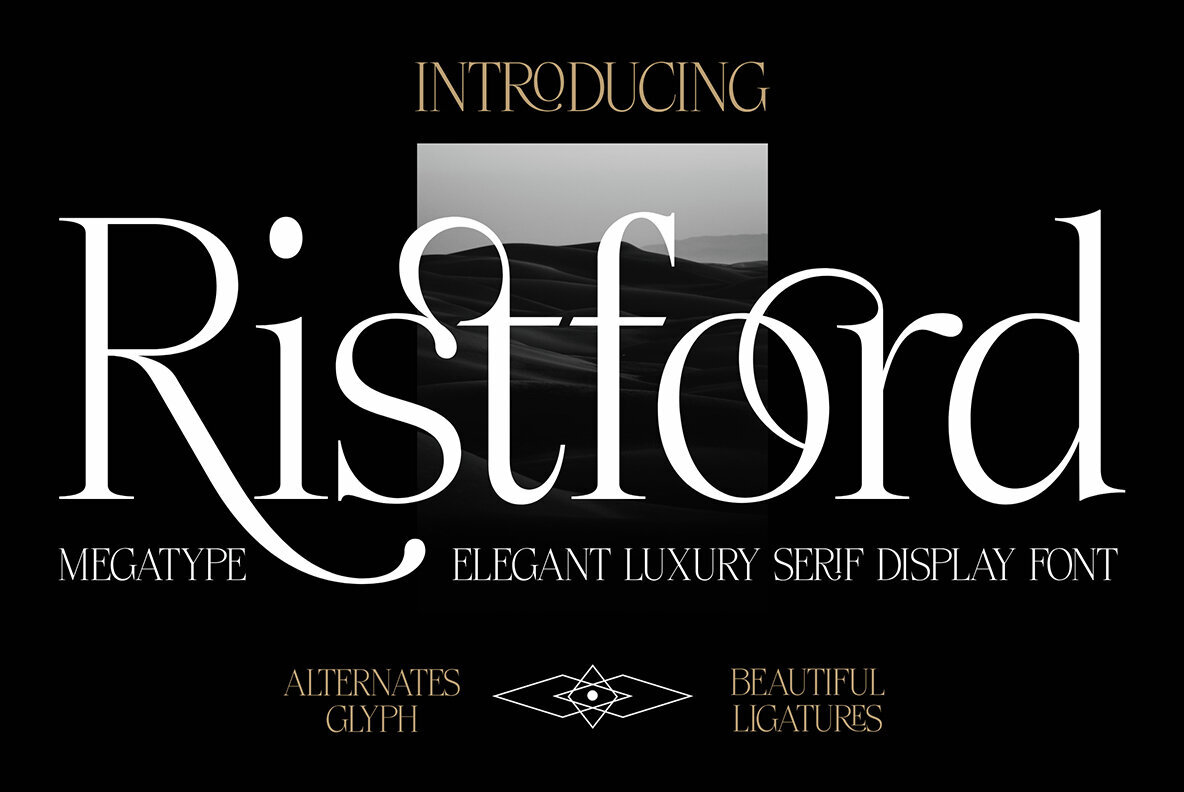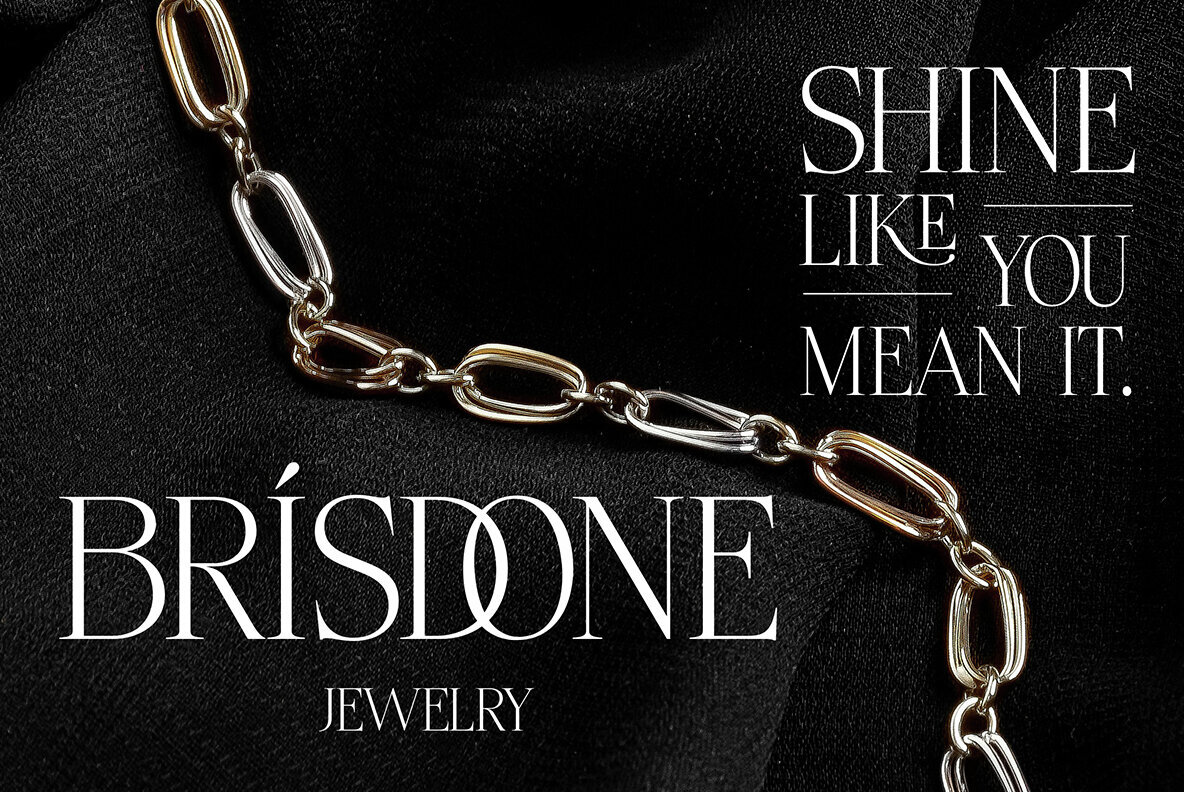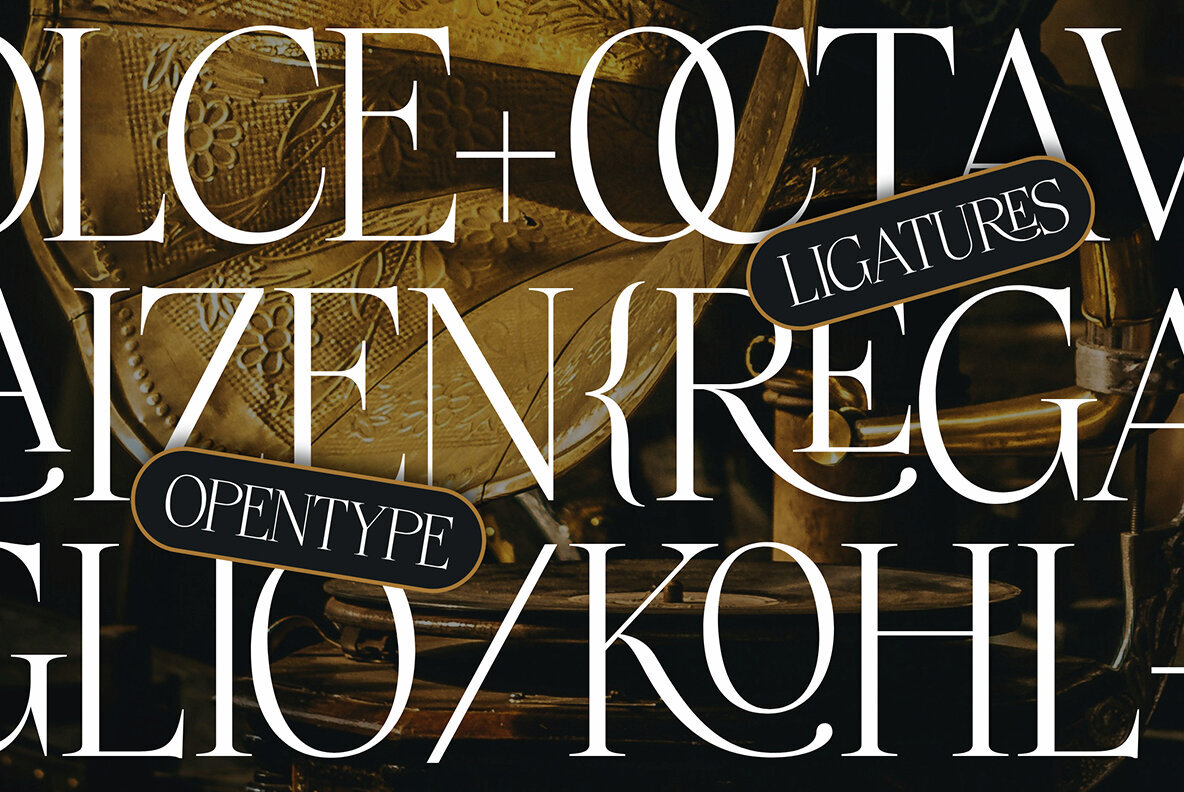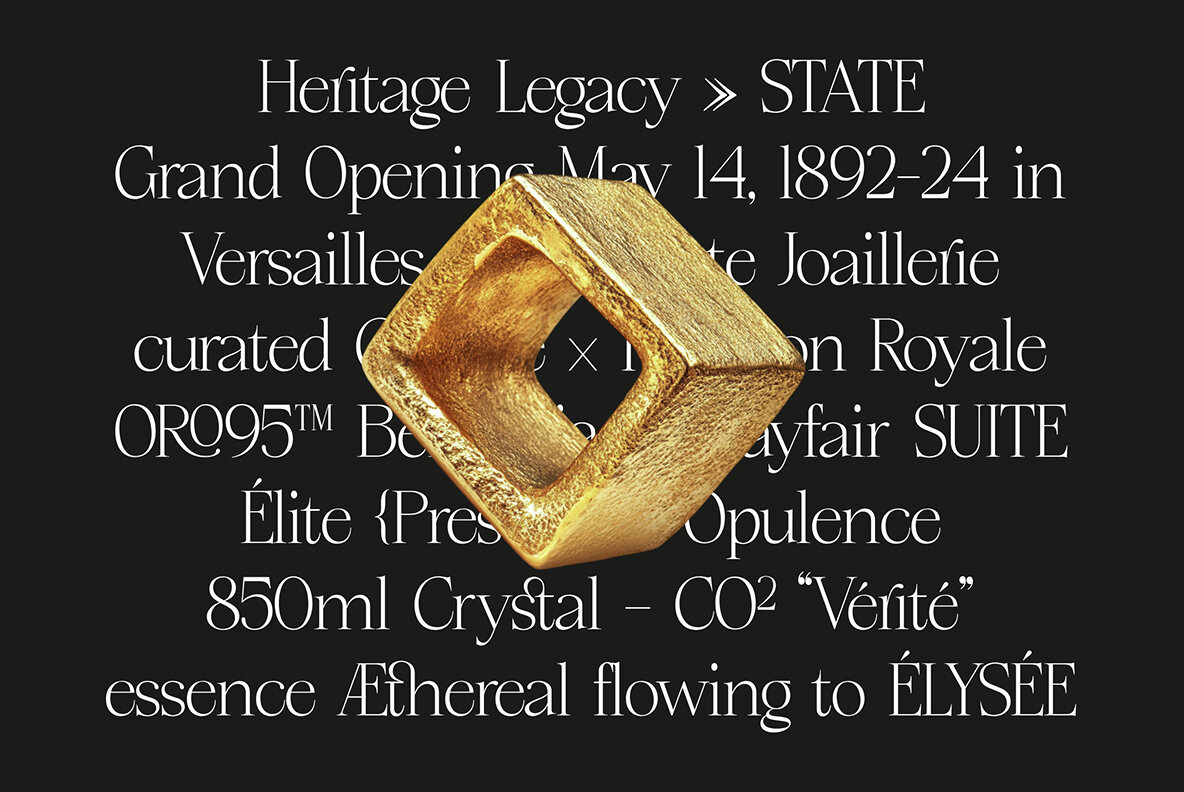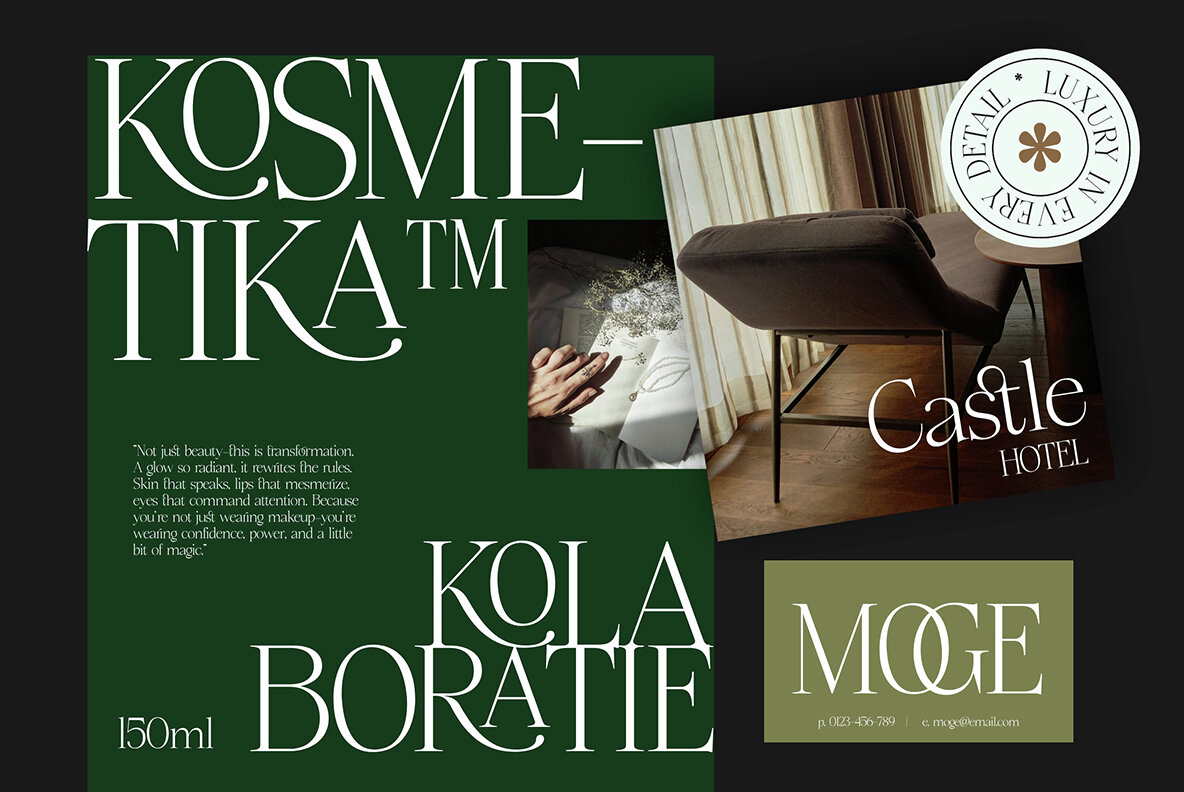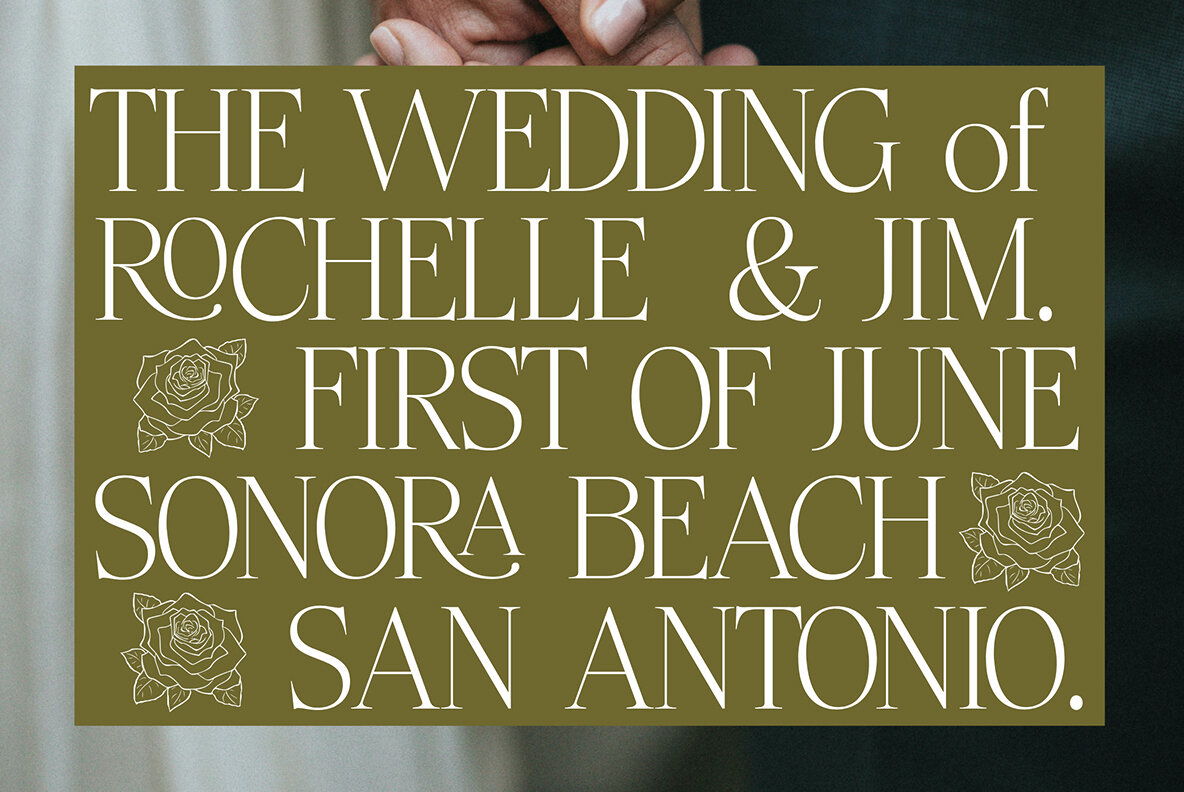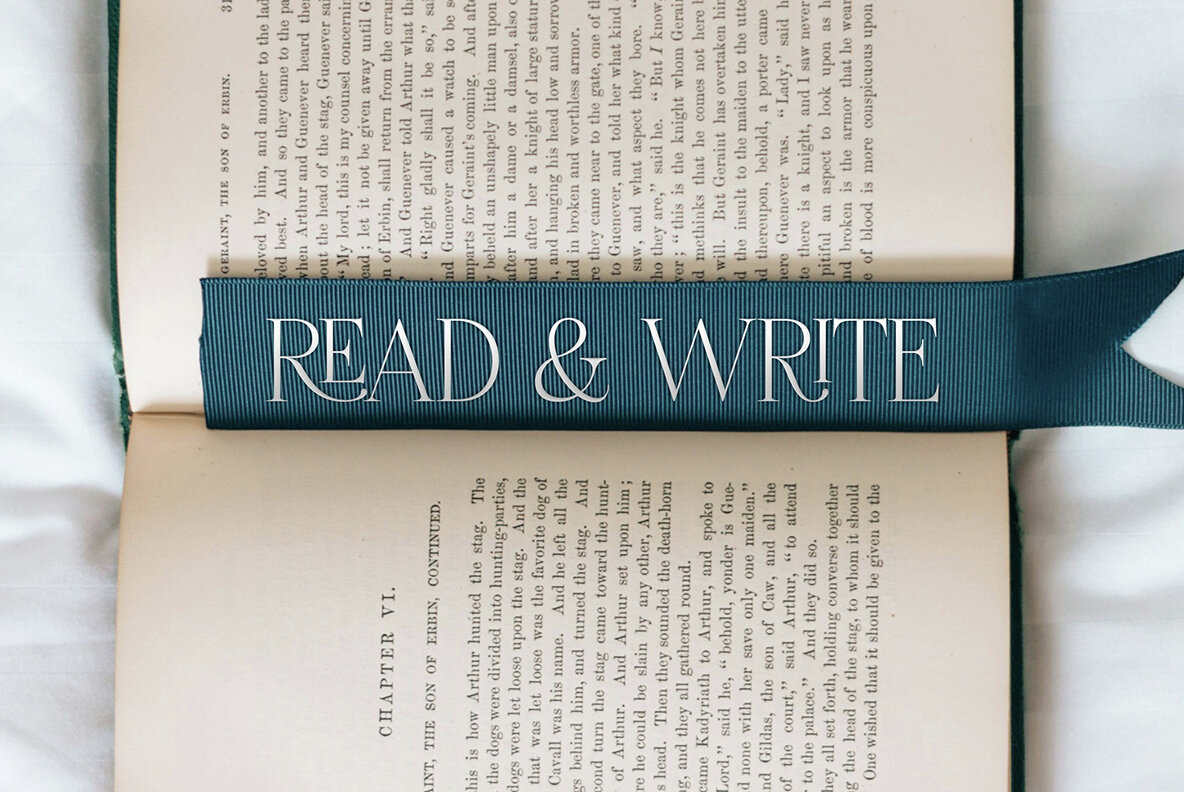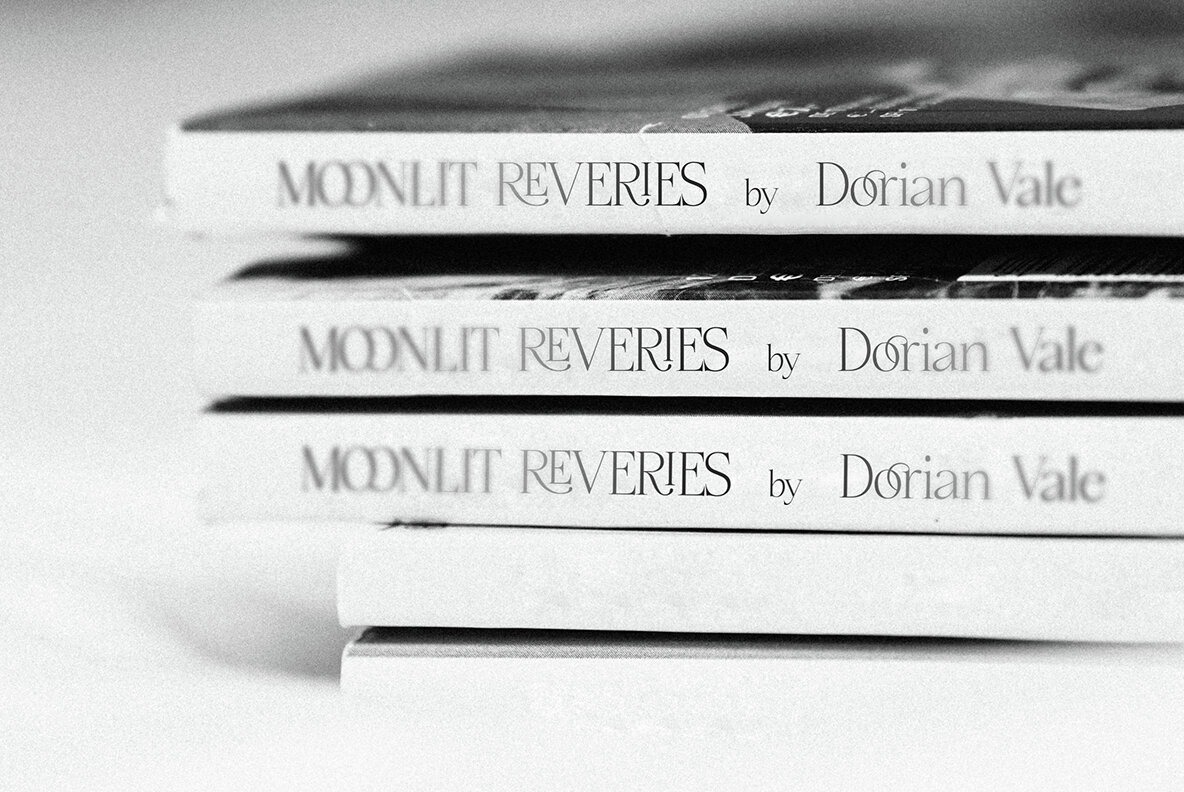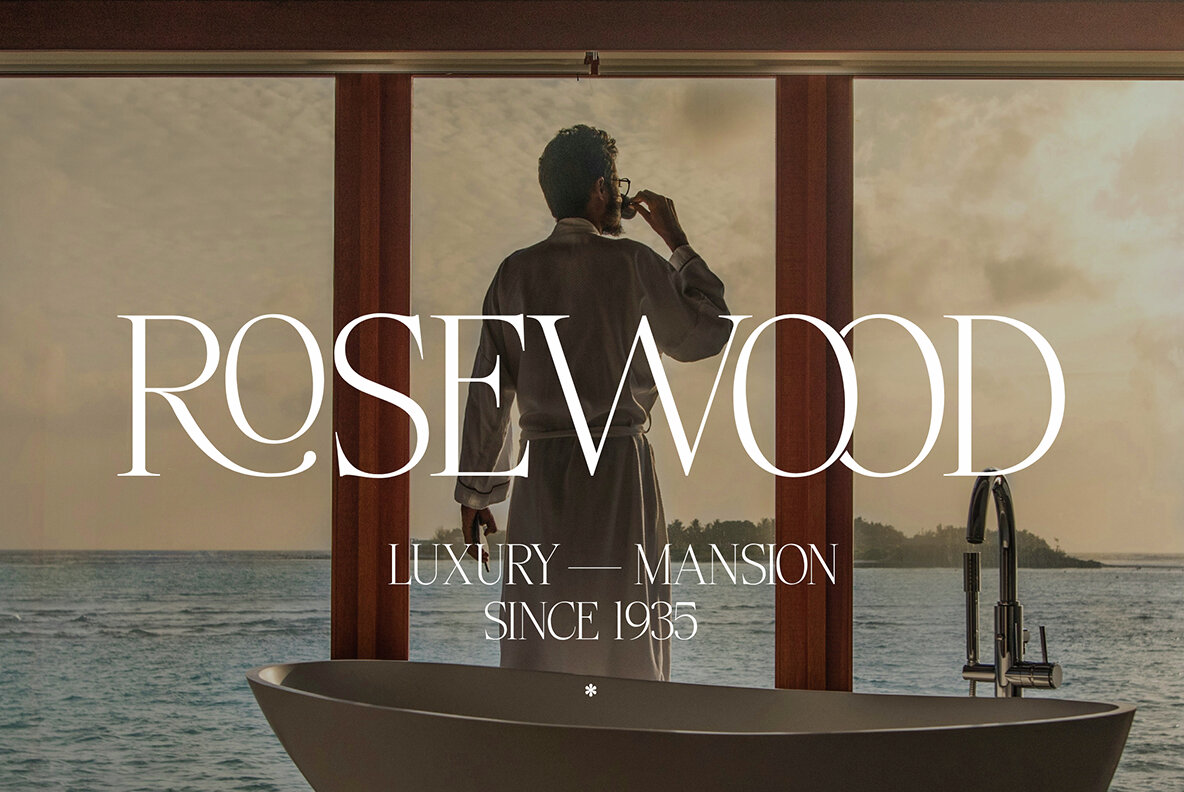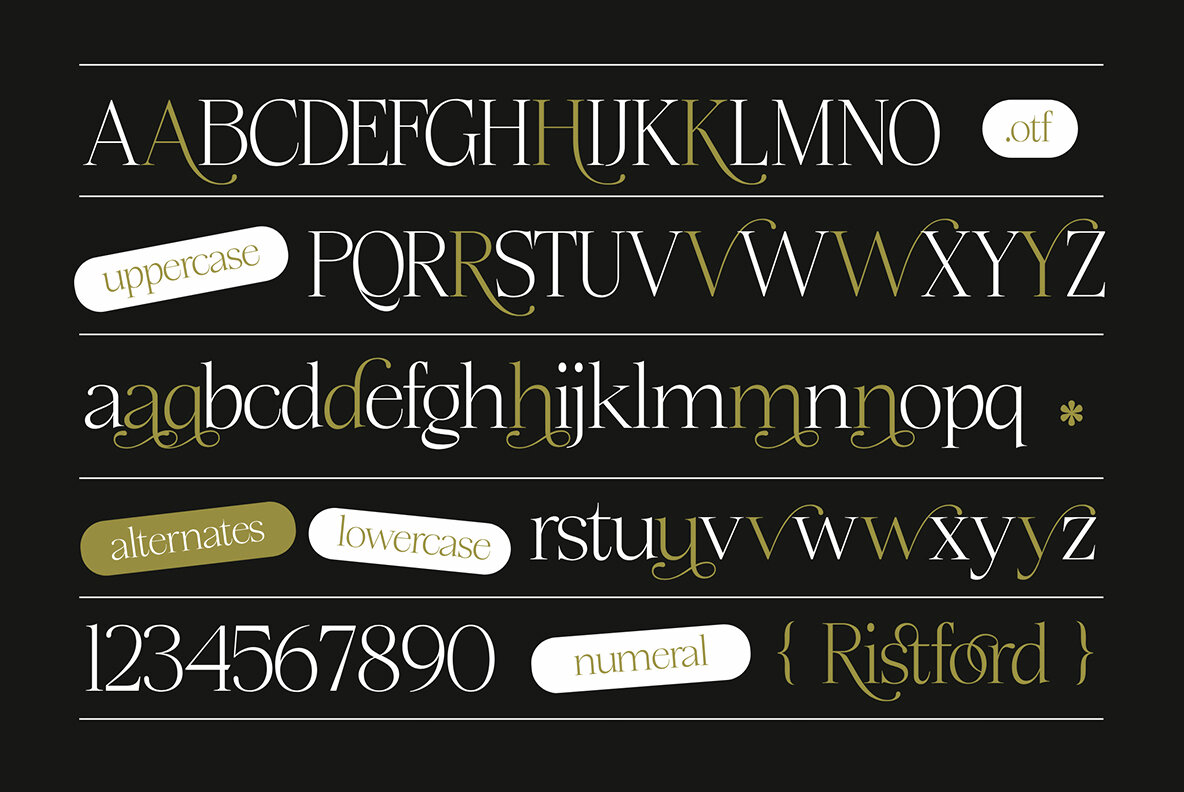
Ristford Font
Ristford Regular
Introducing Ristford, an elegant luxury serif display font designed to captivate with its distinctive letterforms. This font effortlessly combines classic elegance with a modern twist, enriched with a nostalgic 90s retro vibe that is sure to make your projects shine. Ideal for grabbing attention, Ristford elevates your branding and promotional materials, ensuring they stand out seamlessly in today's visually competitive landscape. Ristford is versatile, perfectly suited for headlines, titles, branding projects, logo design, and packaging. Its adaptability extends to magazine headings, advertising, and both short and long texts, making it a top choice for social media and more. Embrace a touch of modern style and sophistication with Ristford, and watch your creative projects come to life.Ristford: The Epitome of Elegance in Serif Typography
Outstanding Features